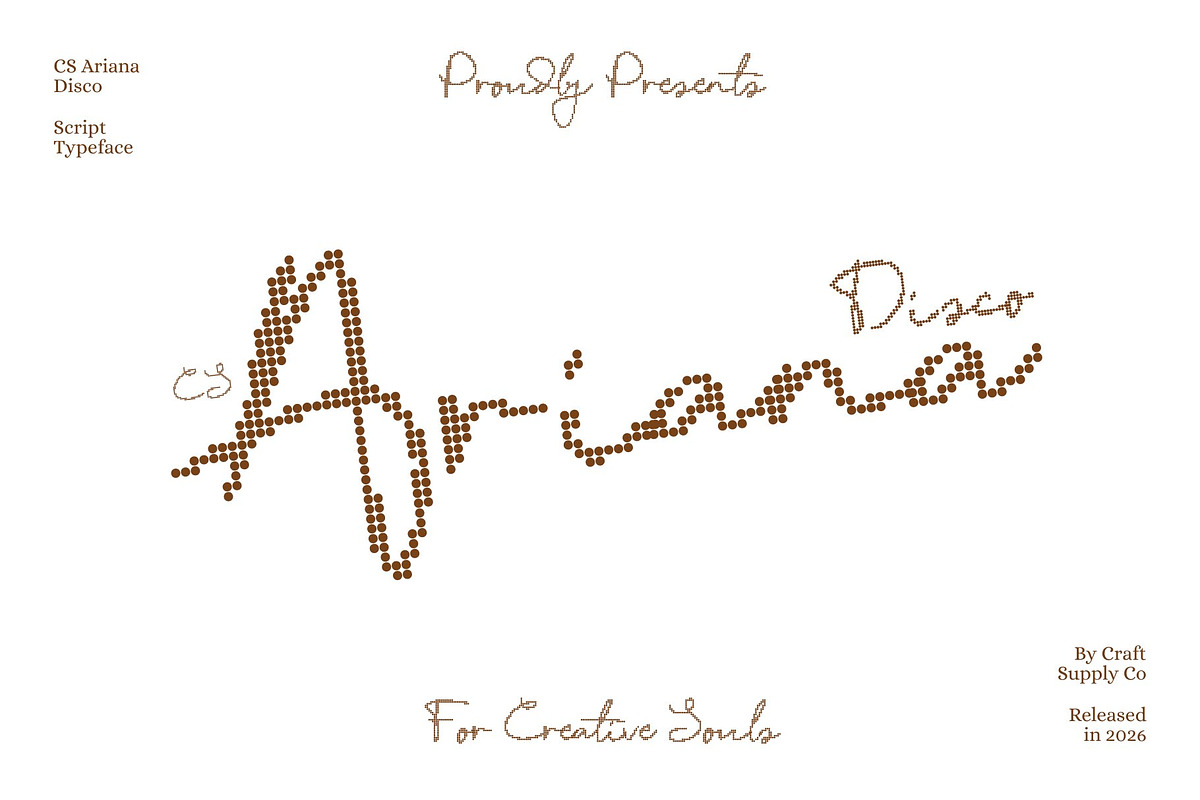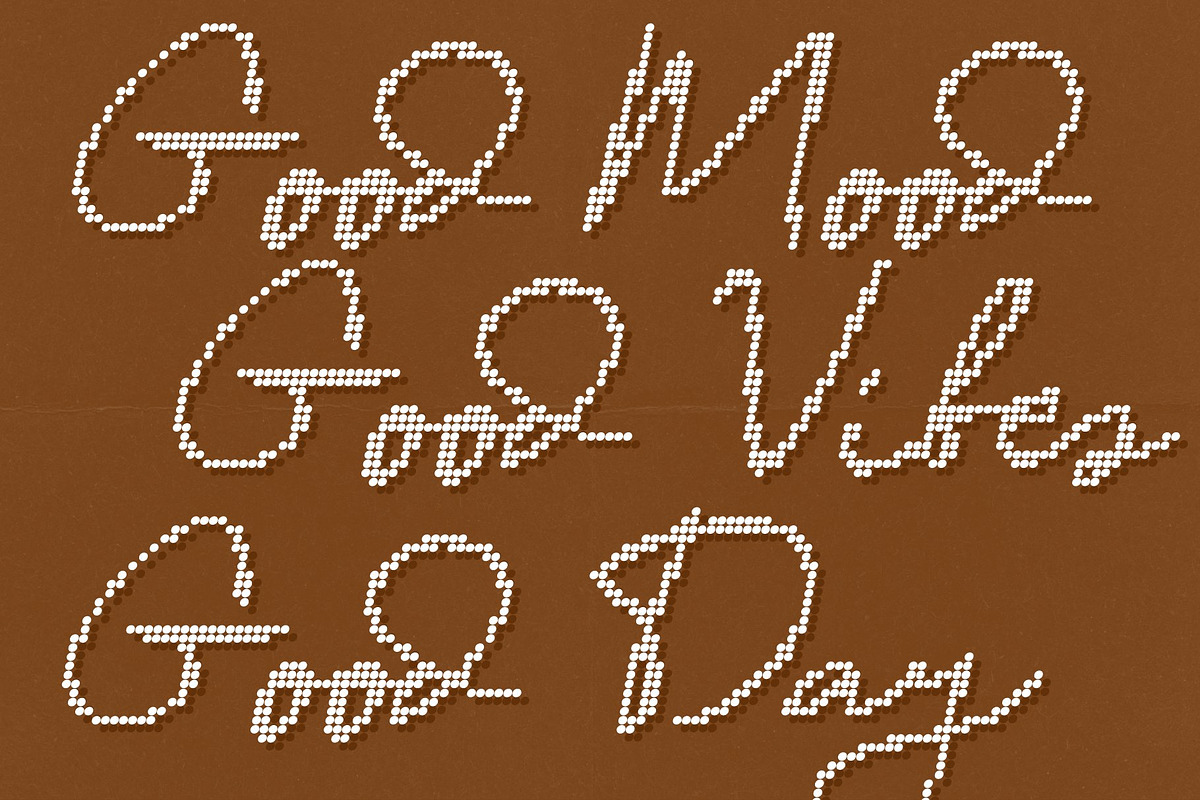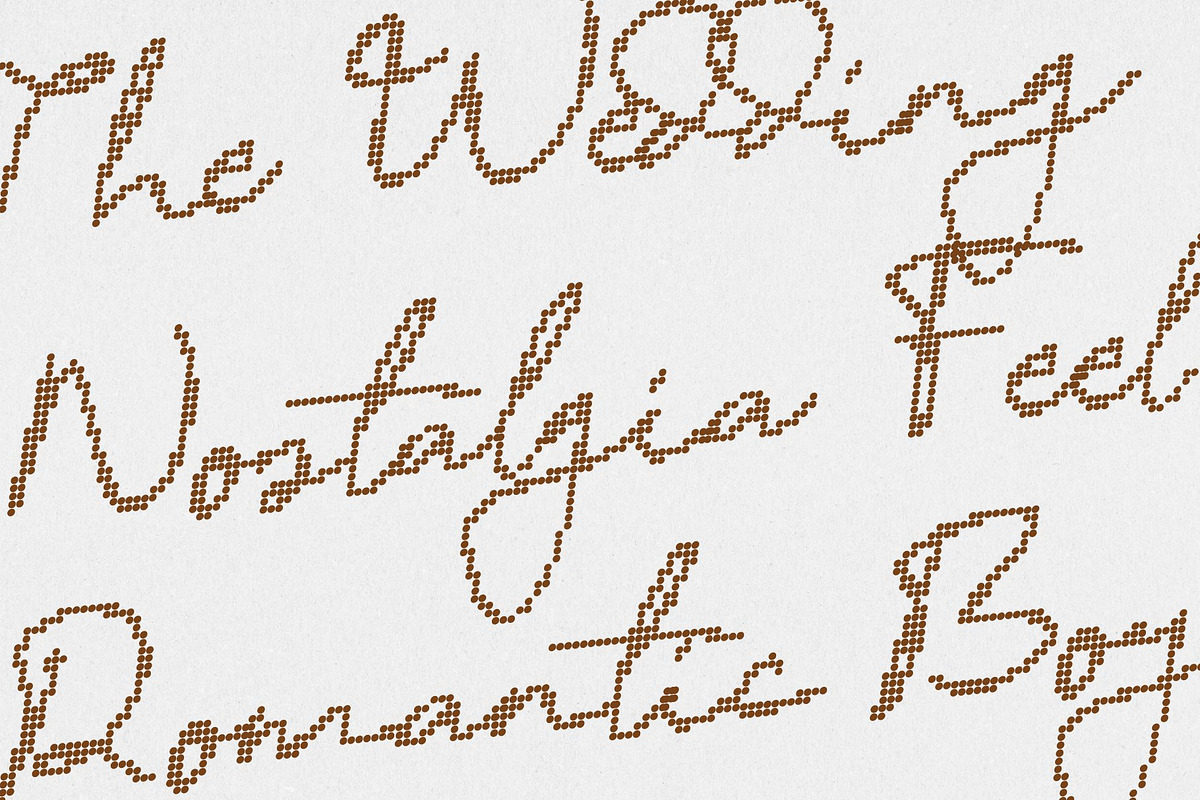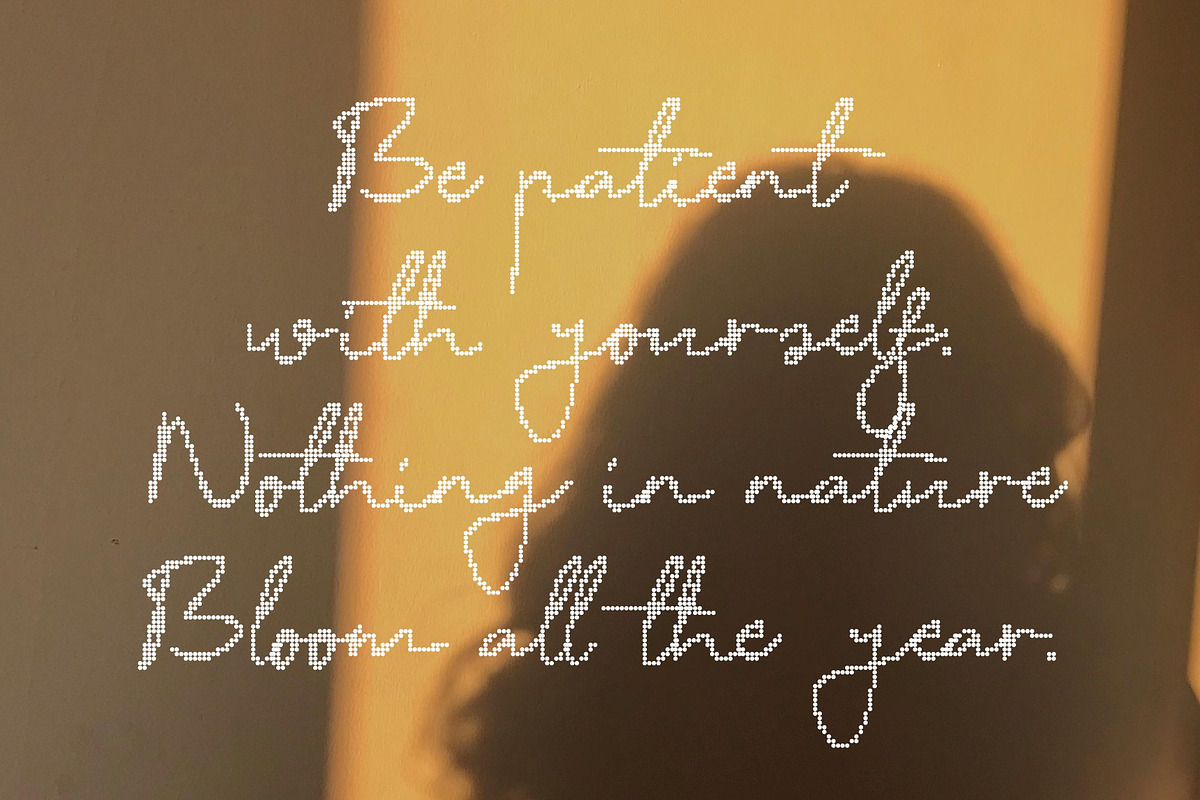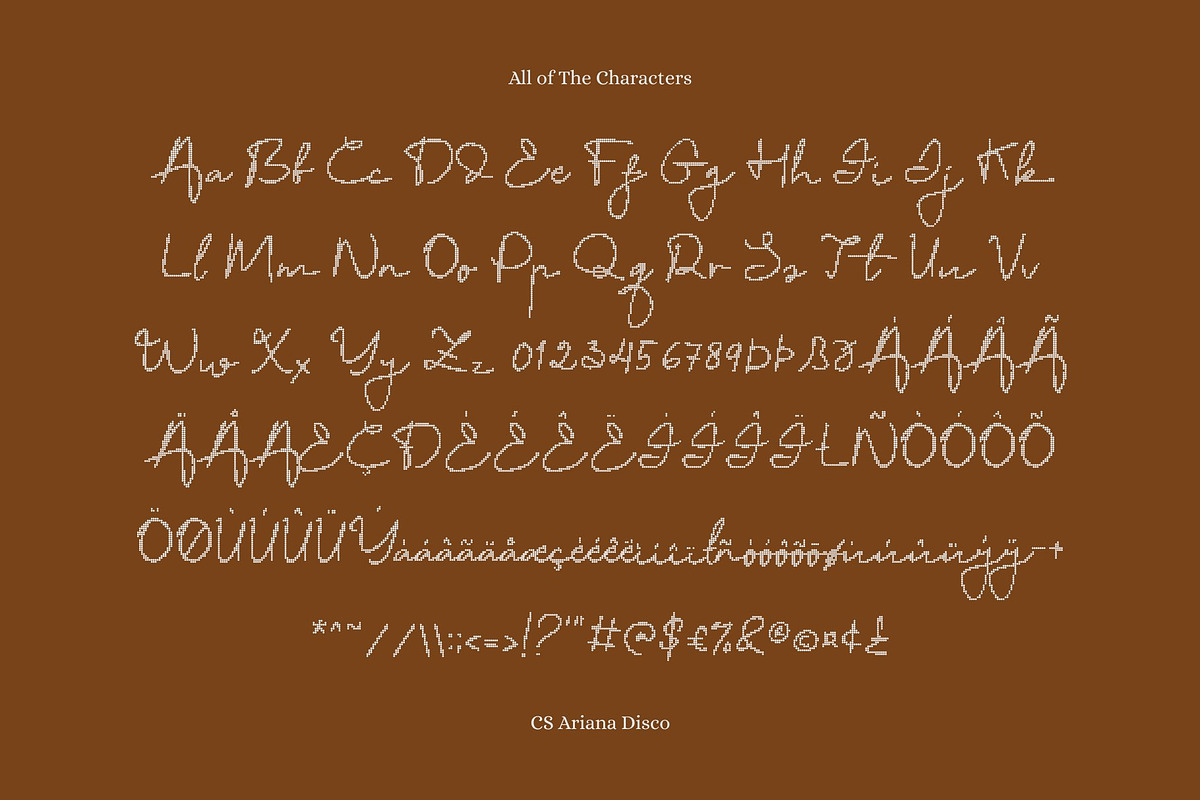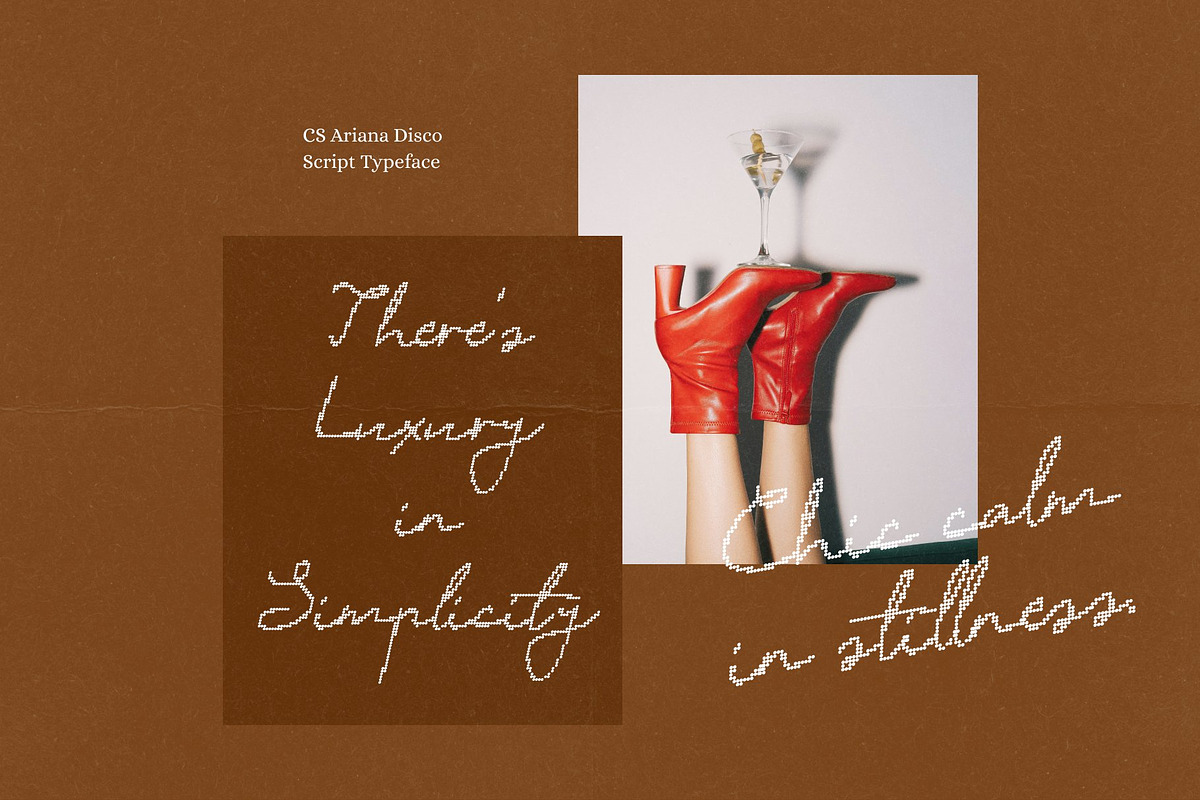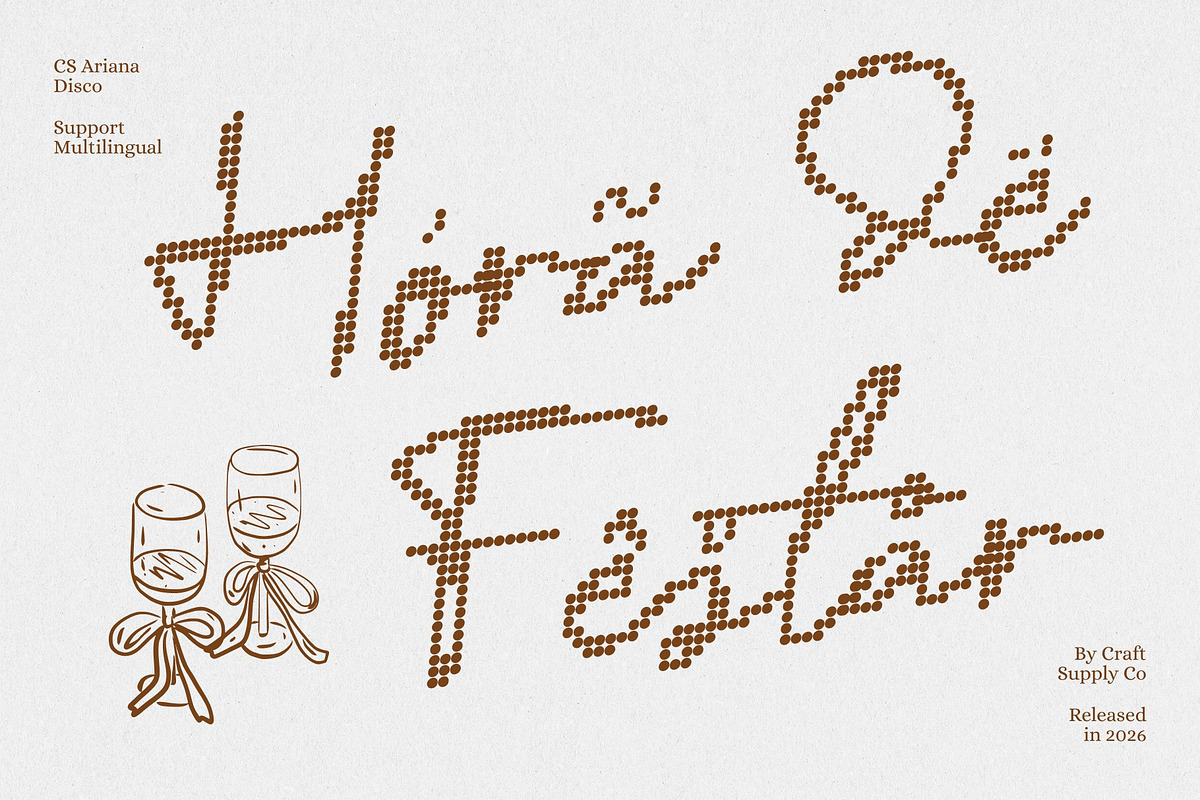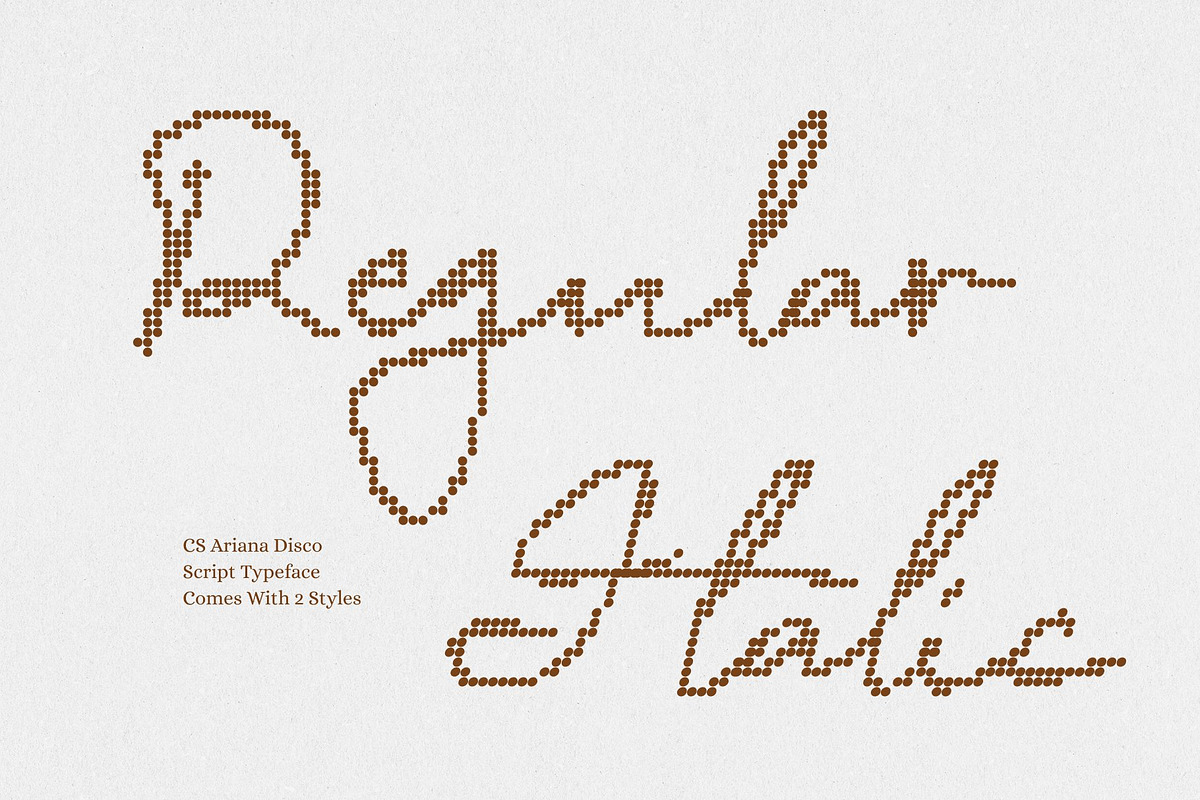
CS Ariana Disco
CS Ariana Disco – Romantic Elegance with Delicate Beauty and Disco Glow
Romantic Script with Flowing Disco Grace This is a romantic script font designed to express beauty, softness, and timeless elegance, enhanced with a subtle disco-inspired glow. Its flowing movement and graceful connections capture the charm of classic handwritten romance while introducing a light sense of rhythm and celebration.
Soft Curves with Refined, Luminous Detail Defined by delicate curves and carefully crafted strokes, this font flows naturally with balance and clarity. Each letter feels intimate and expressive, while the disco influence adds a gentle sparkle like soft light dancing across elegant handwritten forms.
Delicate Expression for Emotional Storytelling Perfect for romantic and lifestyle-driven narratives, this font brings warmth, sincerity, and poetic charm to typography. Whether used as a statement headline or a decorative accent, it enhances visual storytelling with a refined, heartfelt tone that feels memorable and graceful.
Ideal for Elegant and Celebratory Designs Beautifully suited for book covers, branding, lifestyle posters, editorials, and refined visual identities, this font blends romantic softness with festive elegance. It’s the perfect choice for designs that want to feel emotional, sophisticated, and quietly radiant.